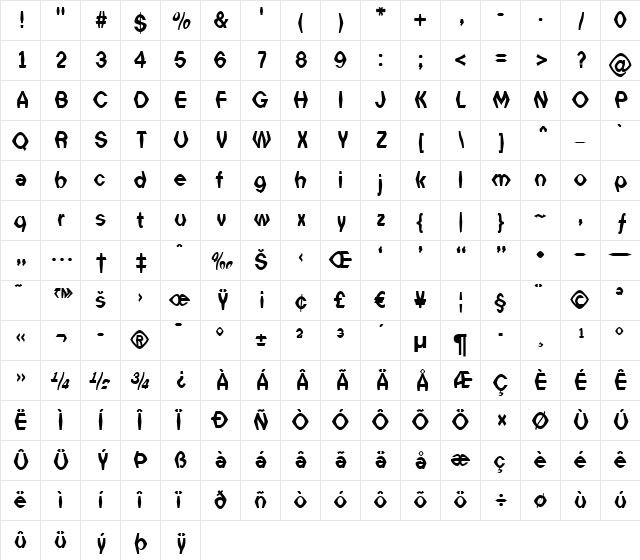
a_ReportSansFld Bold
| Designer | W.Chufarofsky & M.Slutsker |
Design Context for a_ReportSansFld Typeface
a_ReportSansFld is a composed and adaptable typeface that performs quietly and consistently across a wide range of design contexts. The heavy weight commands attention and anchors typographic hierarchies.